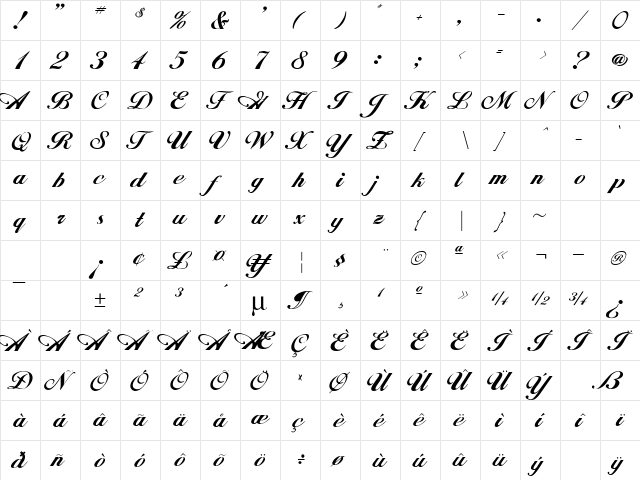
Excalibur Script Regular
Design Context for Excalibur Script Typeface
Excalibur Script flows with the natural rhythm of handwritten lettering, making it ideal for designs that call for warmth and personal expression.
Font Pairing: Combine Excalibur Script with a simple geometric sans for maximum contrast — the tension between flowing curves and clean structure is a classic typographic pairing.
Pro Tip: Pair Excalibur Script with a clean sans-serif for supporting text. The contrast between fluid script and geometric structure creates an elegant typographic hierarchy.